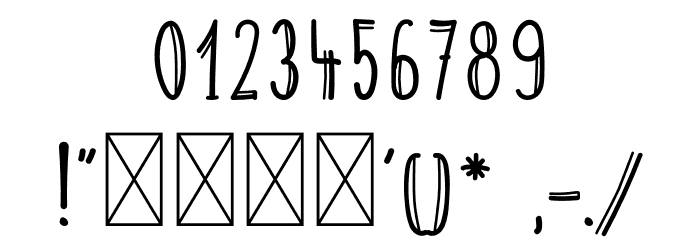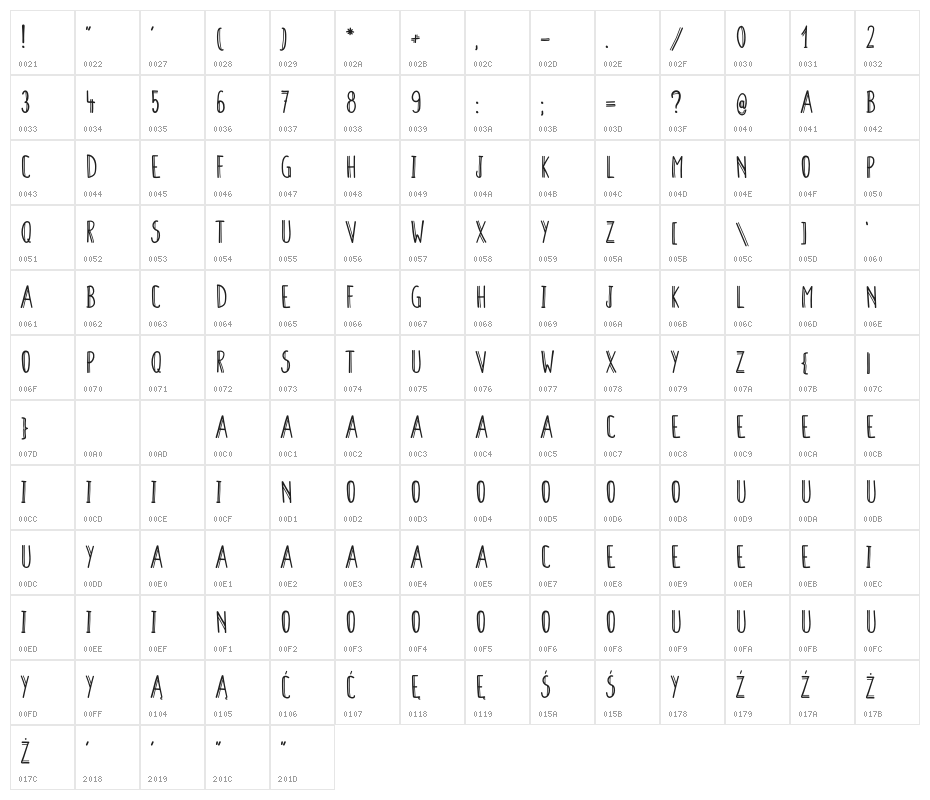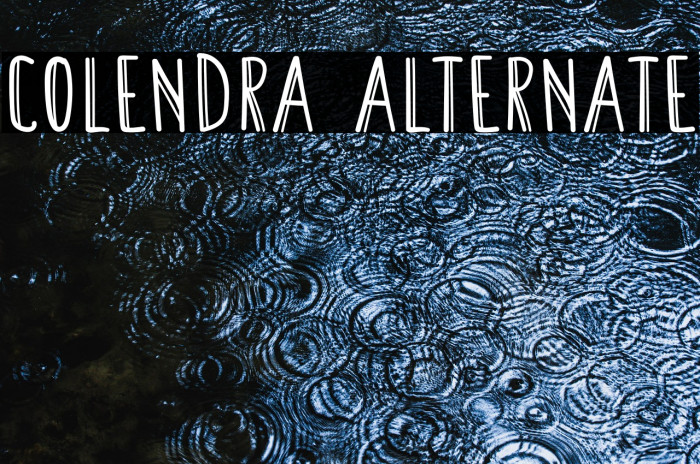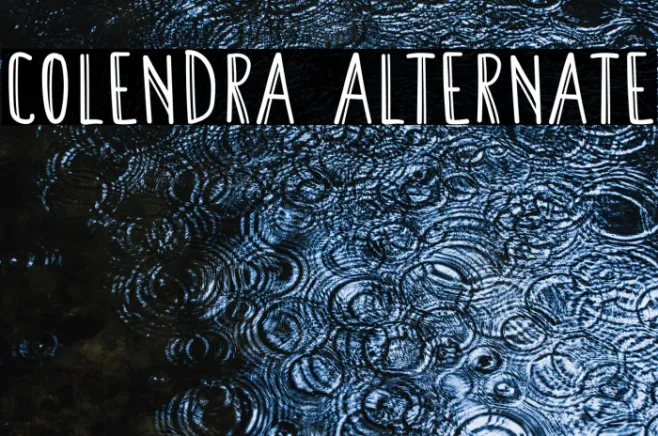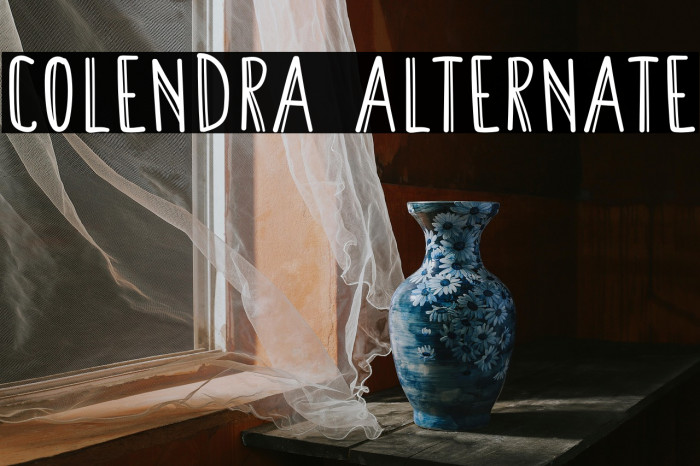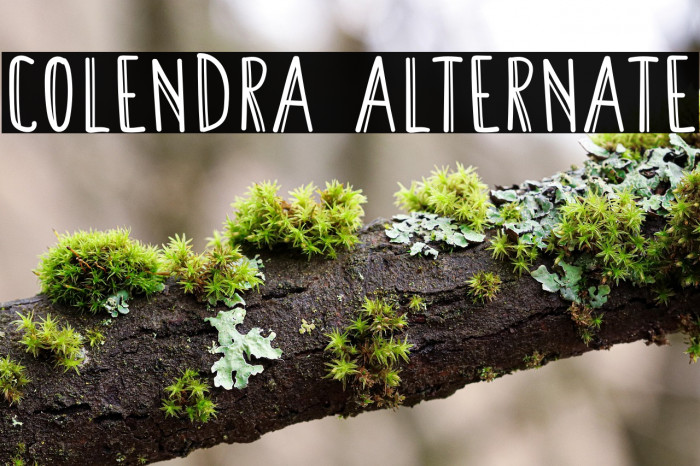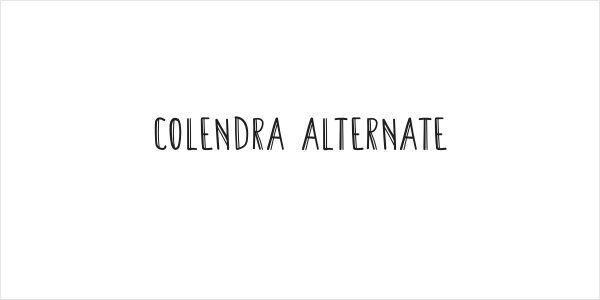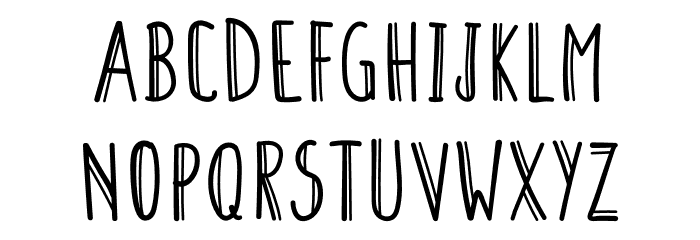
Colendra Alternate Font
Colendra Alternate Description
This font features a playful and quirky design with hand-drawn characteristics. The letters are tall and narrow, with a slight irregularity that adds a whimsical touch. The strokes are uneven, giving it a casual and artistic feel. The uppercase and lowercase letters maintain a consistent style, while the numbers and special characters complement the overall aesthetic. This font is perfect for projects that require a fun and informal look, such as children's books, greeting cards, or creative posters.
Proposed ProjectsIdeal for children's books, greeting cards, creative posters, and informal branding.